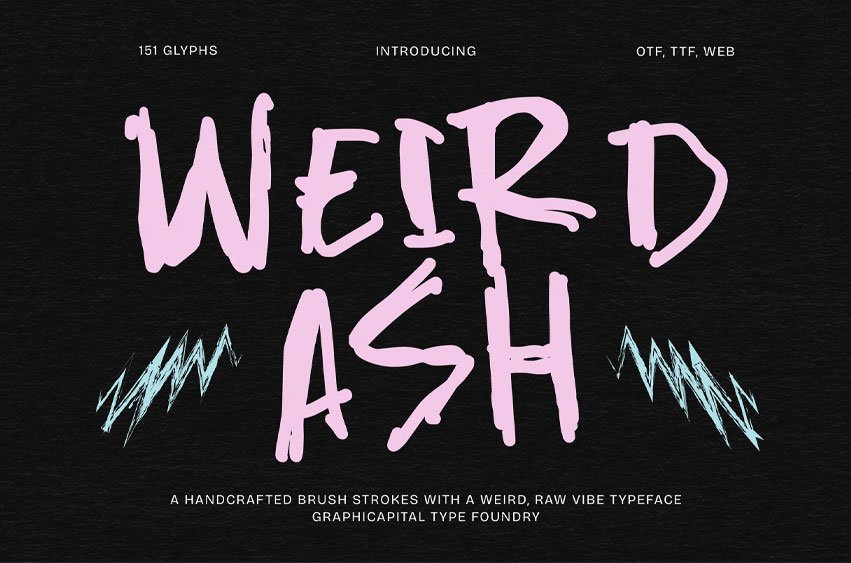
Weirdash Font
Weirdash Font is a handcrafted brush display font with wild, rough, and expressive strokes that create a raw and edgy personality. Inspired by spontaneous brush movements, each character feels unique, messy, and full of energy.
Ideal for branding, posters, headlines, packaging, album art, game visuals, and promotional designs. It adds personality to any creative project and helps your message stand out effortlessly.